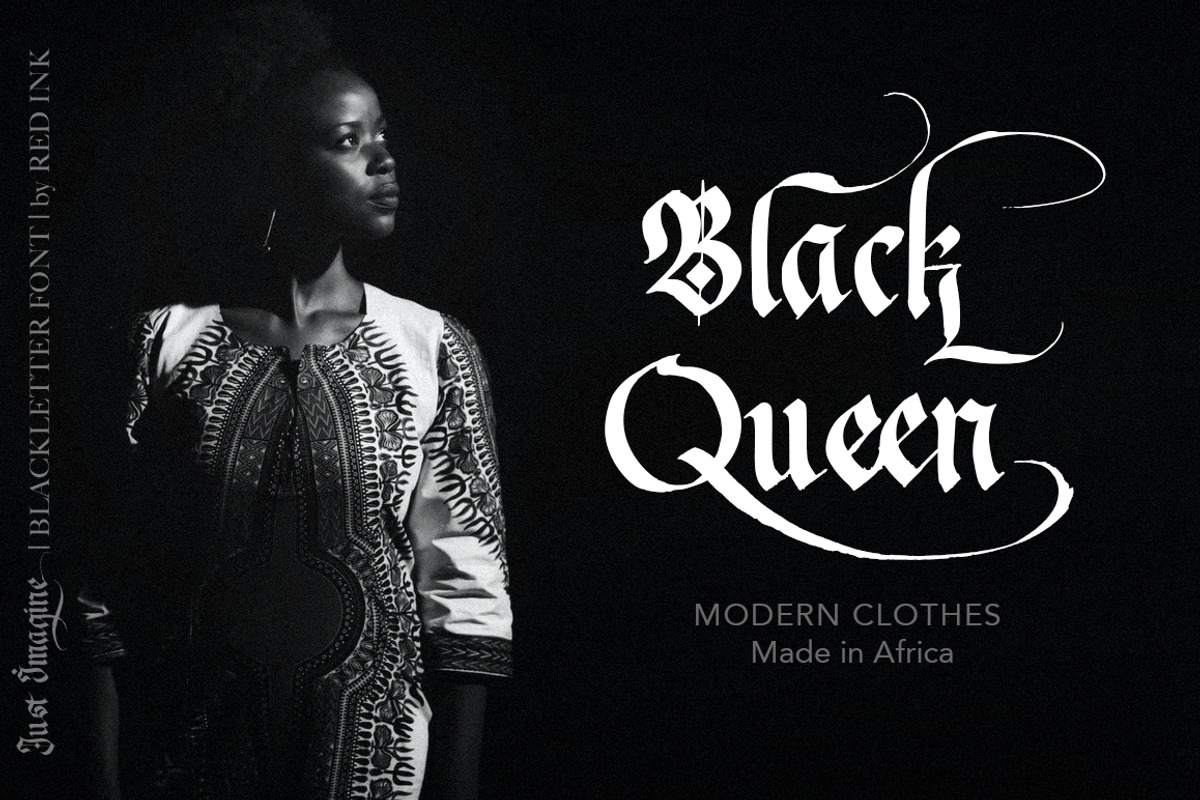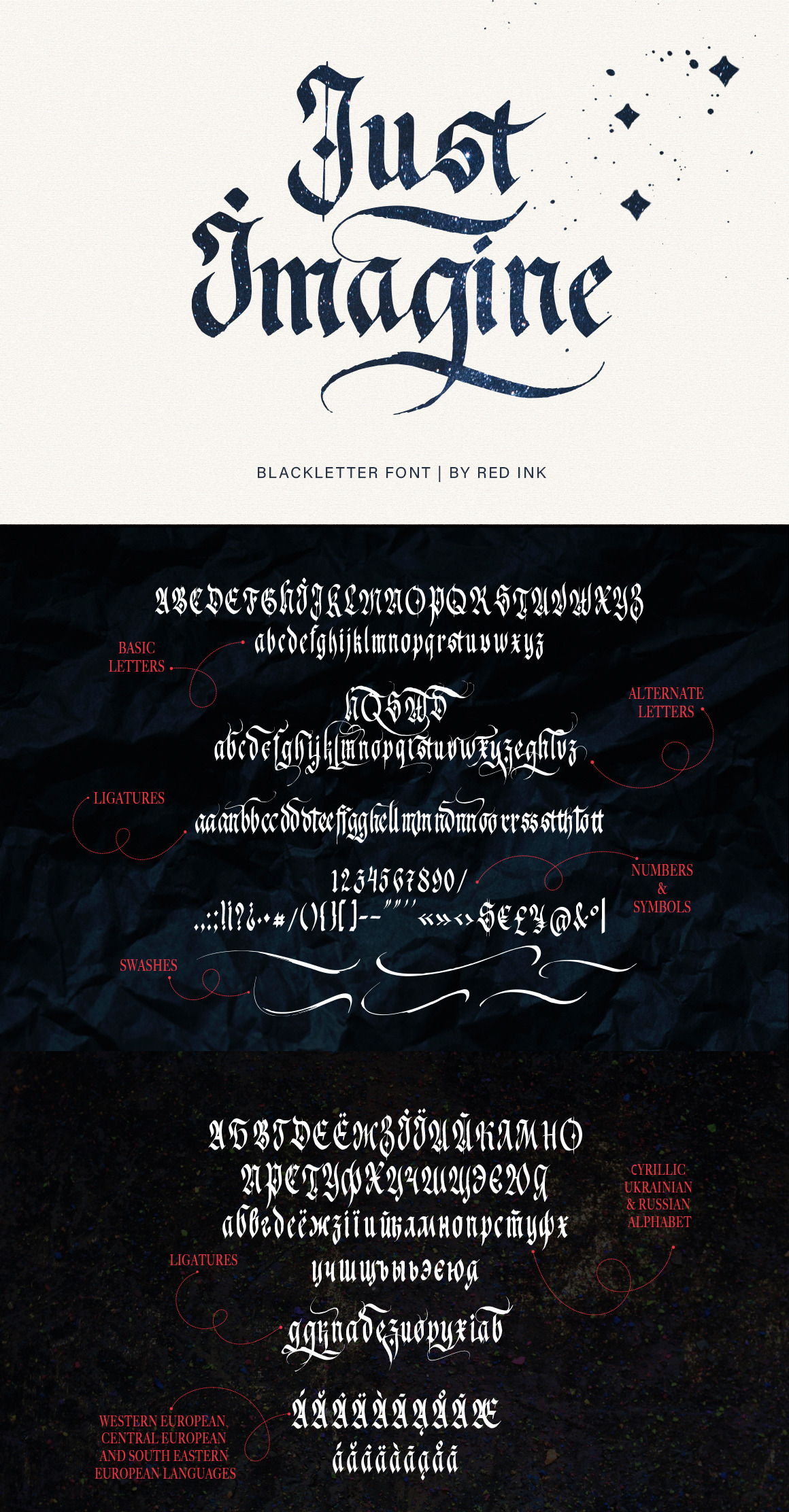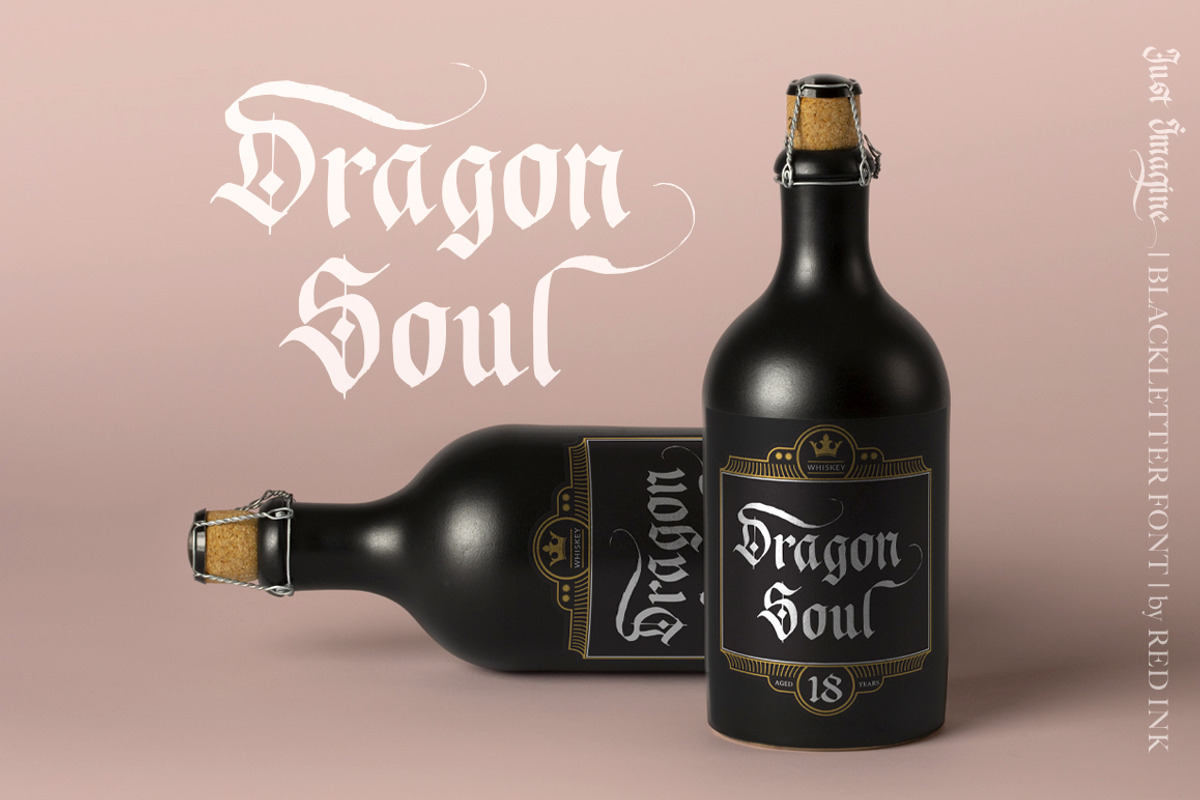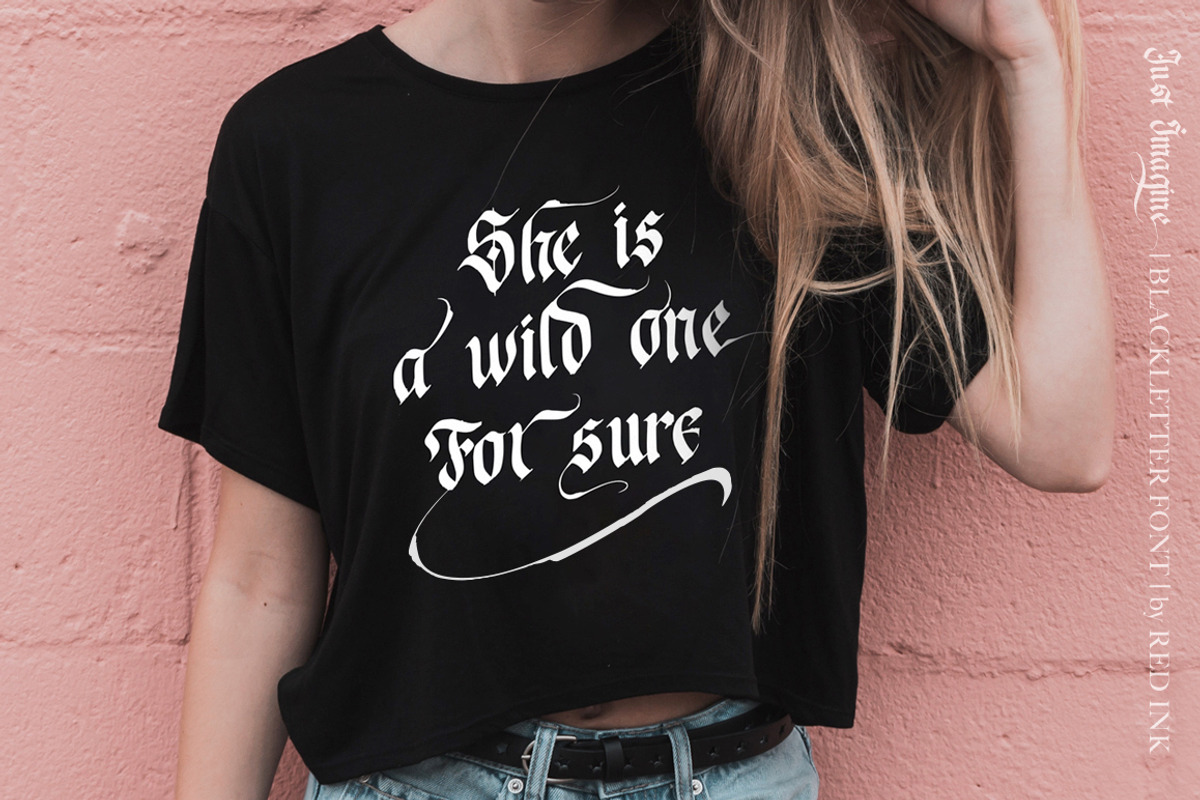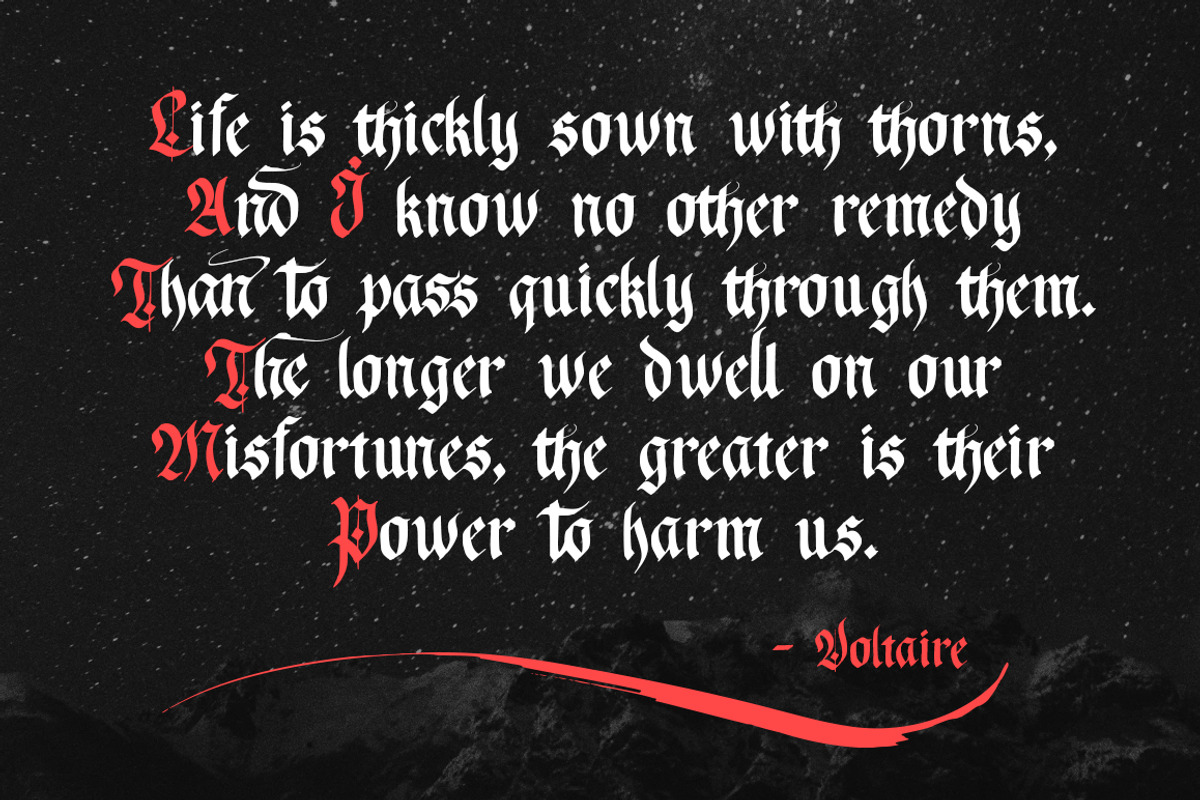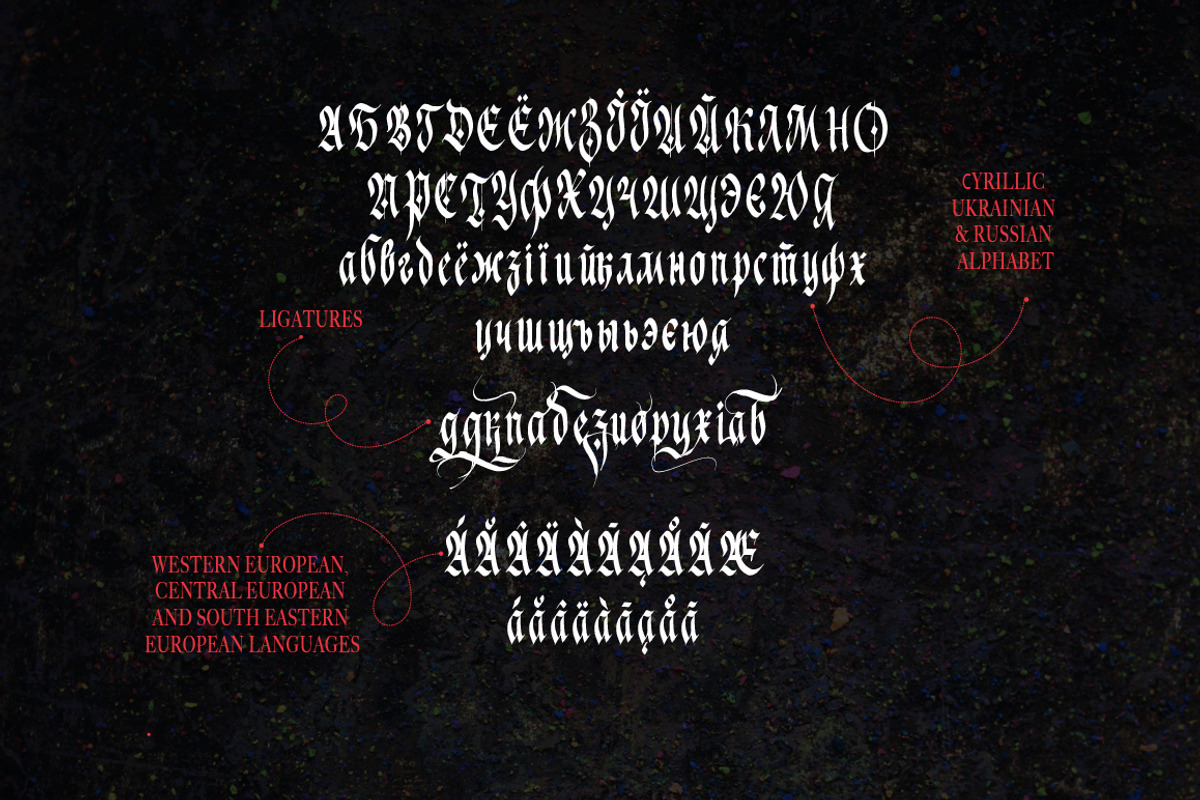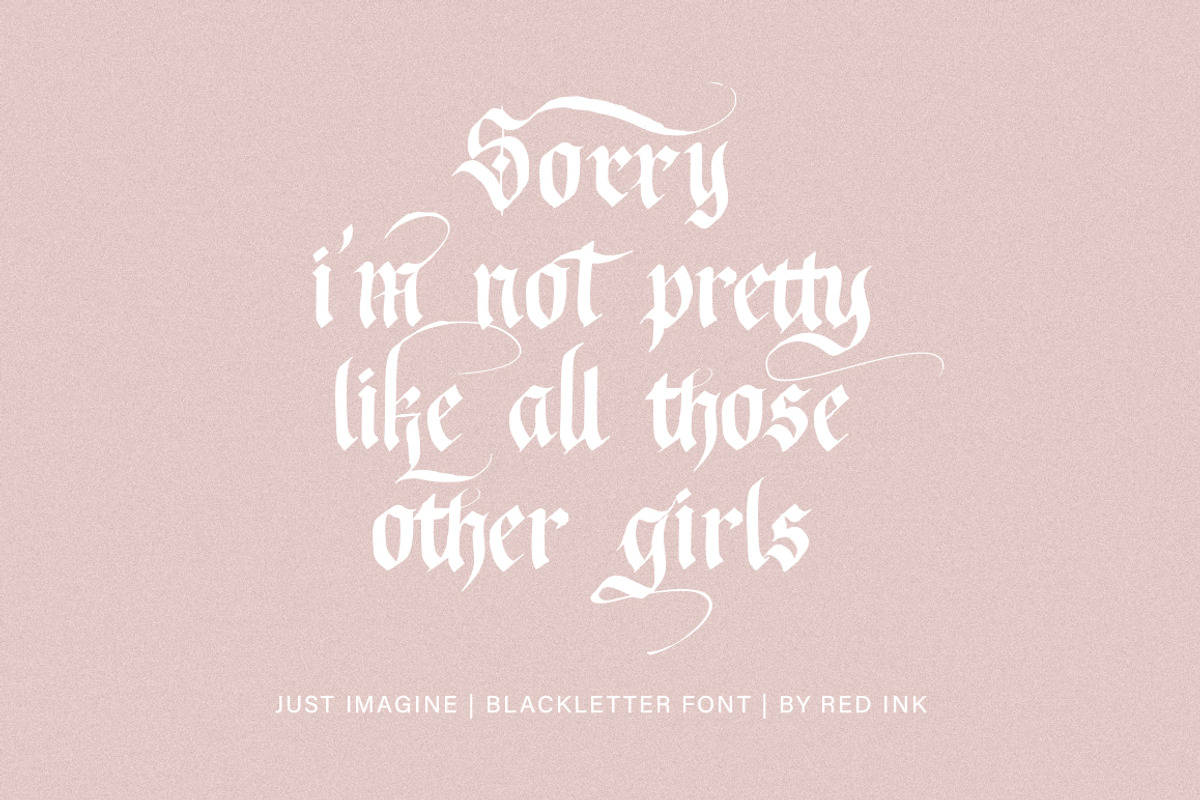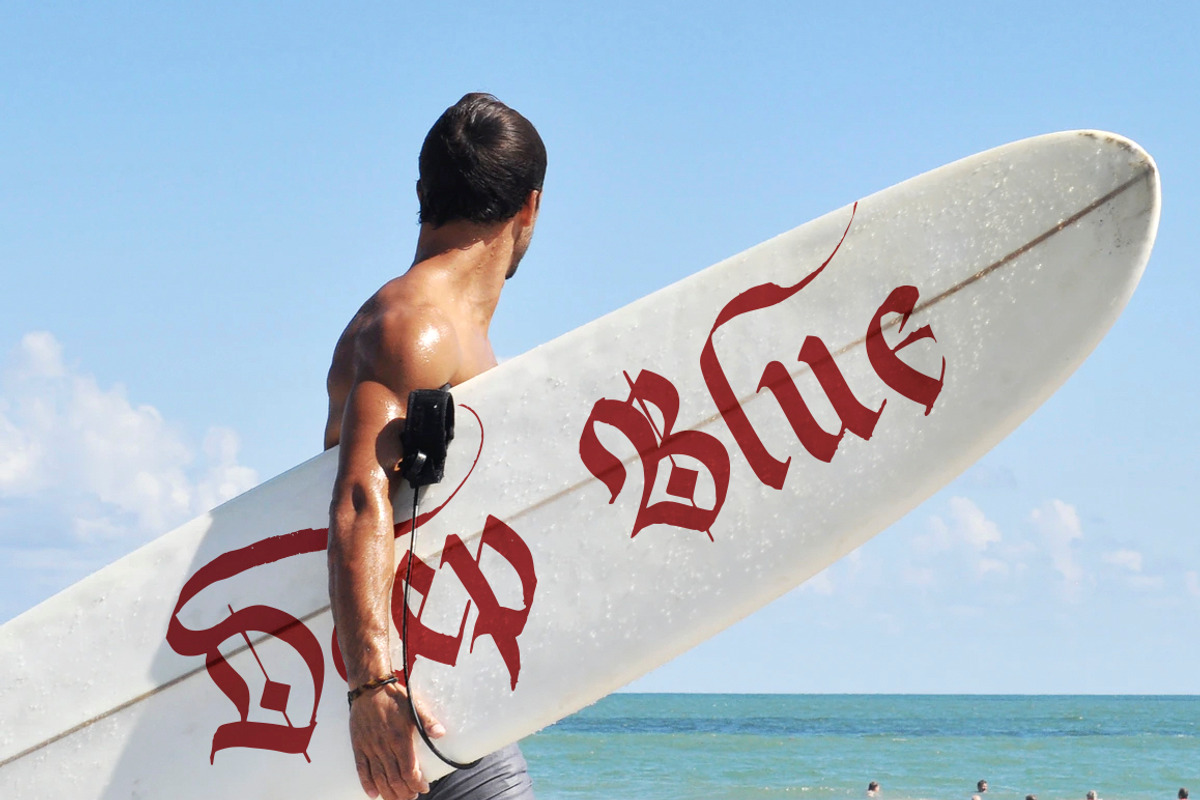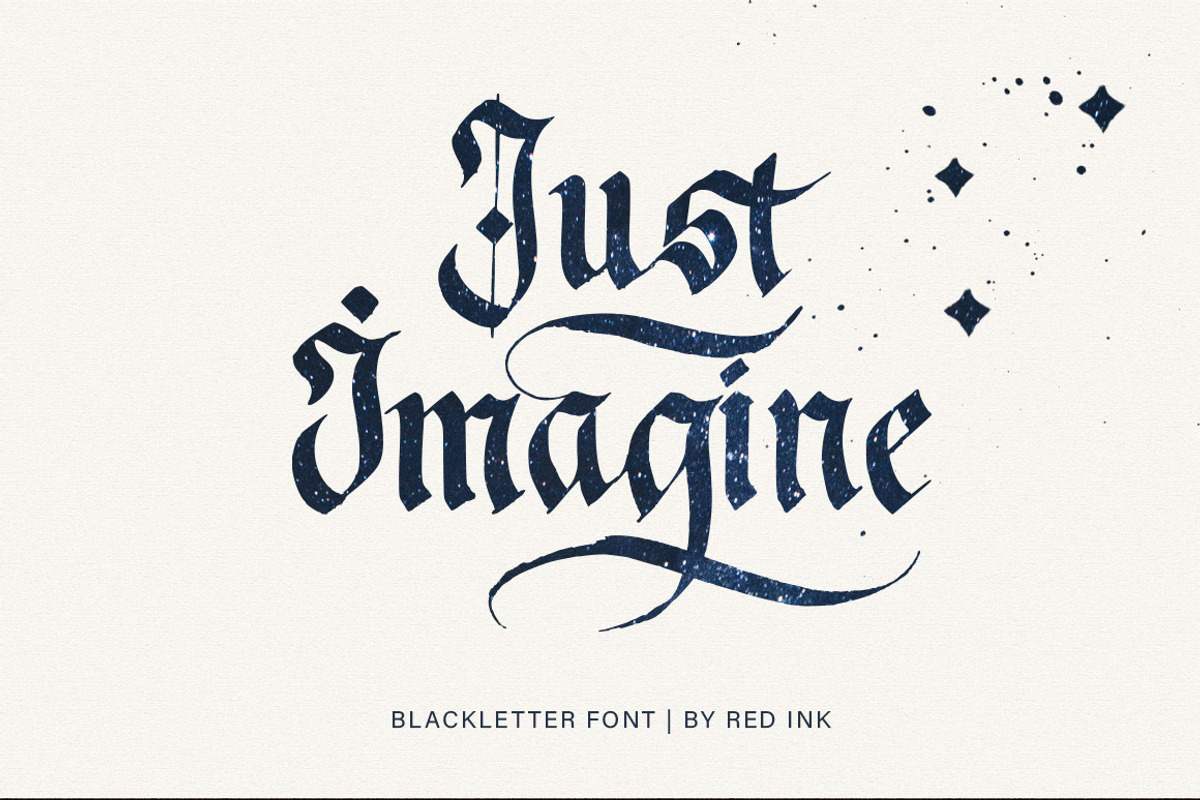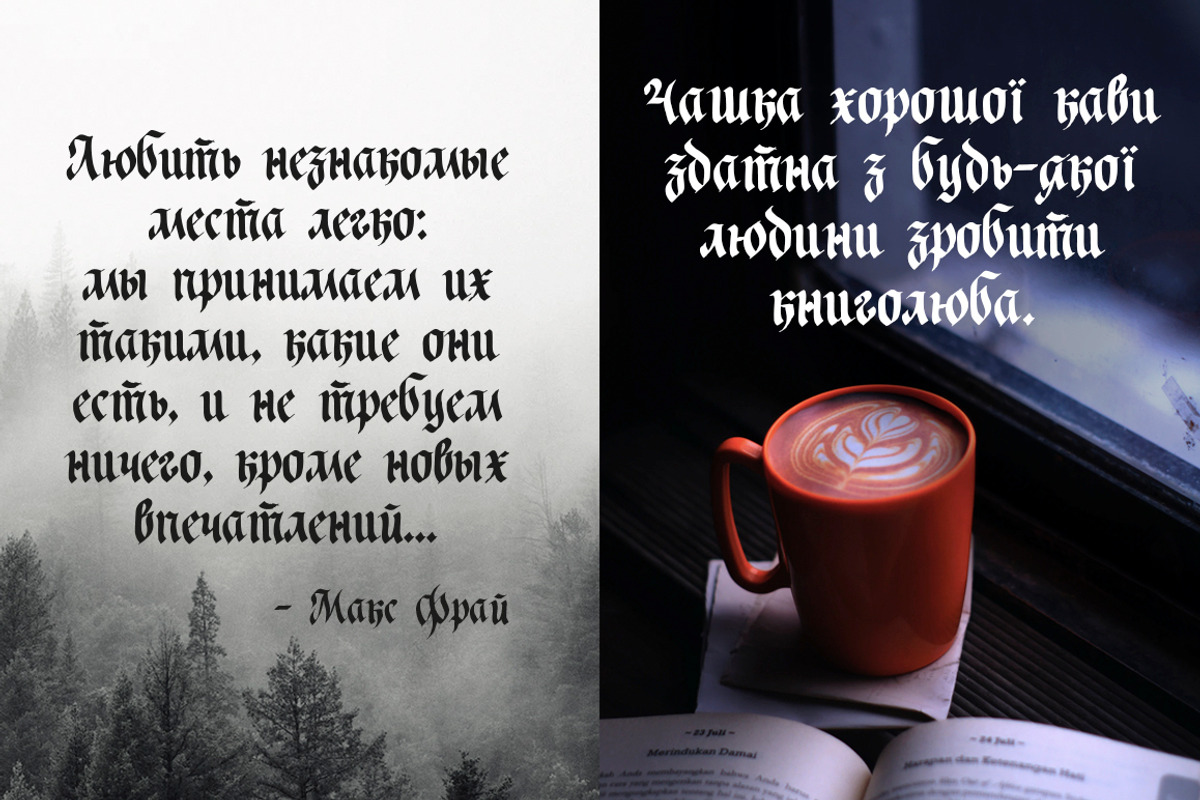
Just Imagine. Blackletter Font.
I'm happy to introduce you Just Imagine font with classic, elegant, vintage, and magic feel. It’s perfect tool to create amazing designs, like vintage cards, modern t-shirts, retro posters, unusual mugs, luxury branding materials, and any other projects you are working on.
Just Imagine font was created by inspiring beautiful fraktur calligraphy style. This font saved hand dawn texture, it was completely hand drawn with a flat pen and ink and then carefully digitized. Just Imagine font comes with lots of OTF, ligatures and alternate letters. So you can create your own typography magic with saving rear handwriting feel.
Font include multilingual Cyrillic and Latin support. More than 90 languages are included: Western European, Central European and South Eastern European languages. Also included are Russian and Ukrainian languages. Please type characters in text box below to check any characters you need.